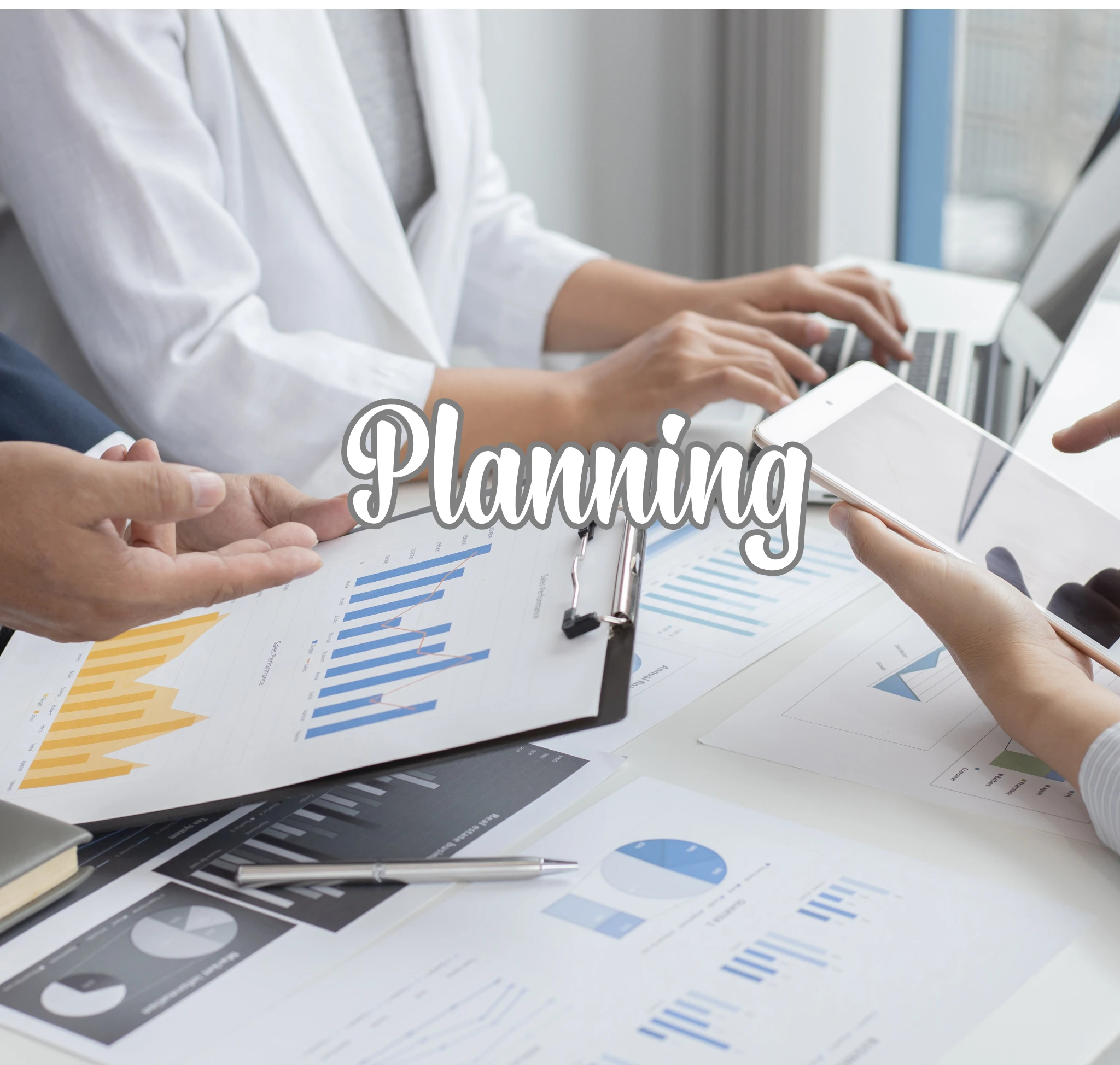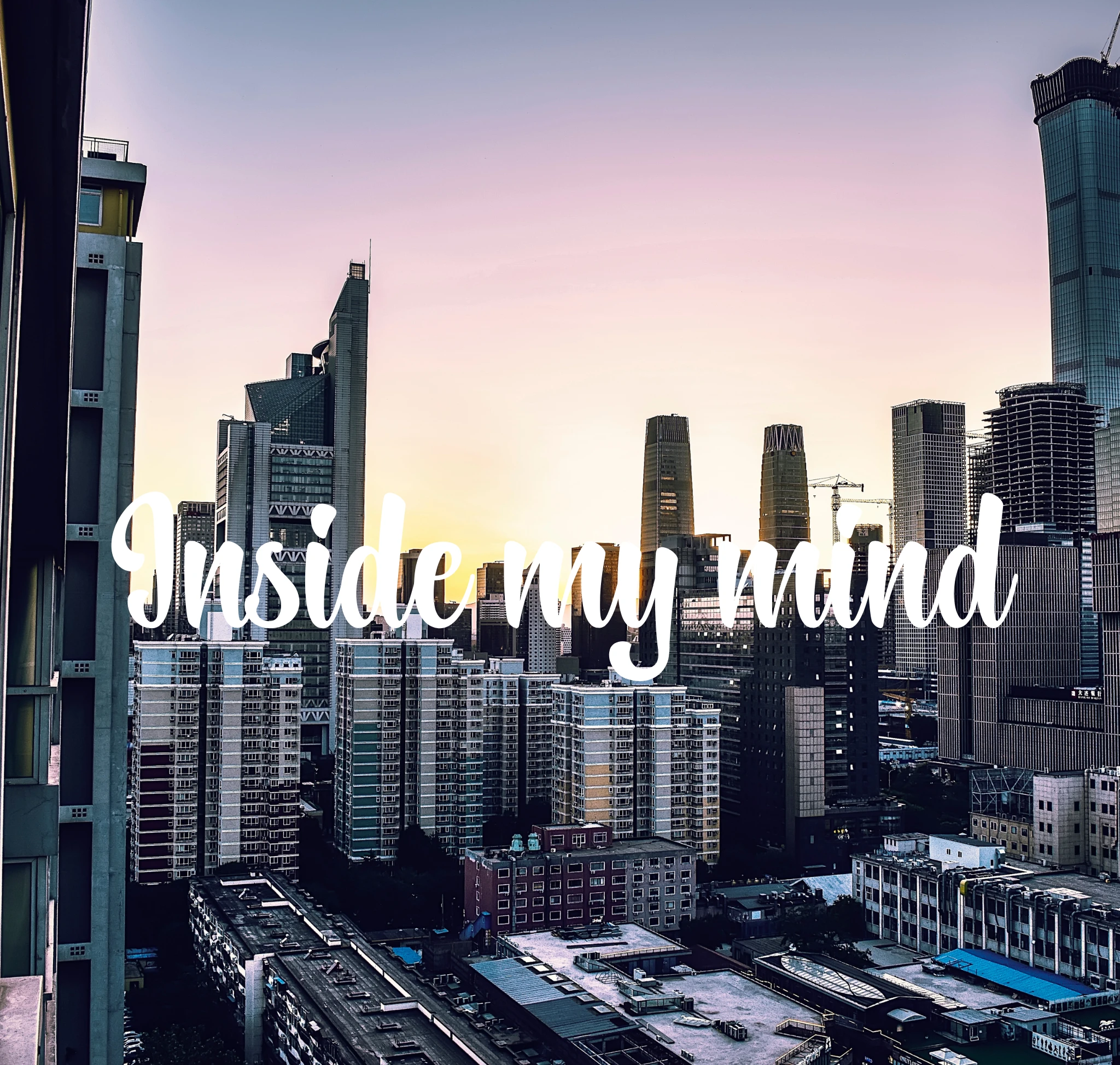
Reach new heights with Skyscraper Fonts ā a tall, modern display typeface inspired by urban skylines and contemporary architecture. Its slim yet powerful letterforms give your text a striking, vertical look thatās perfect for headlines, posters and branding projects that need a bold, clean presence.
Use Skyscraper Fonts for architectural firm branding, magazine titles, event posters, product packaging, logos, website headers, social media graphics and advertising campaigns. The fontās distinctive height and clarity make it ideal for both print and digital designs.